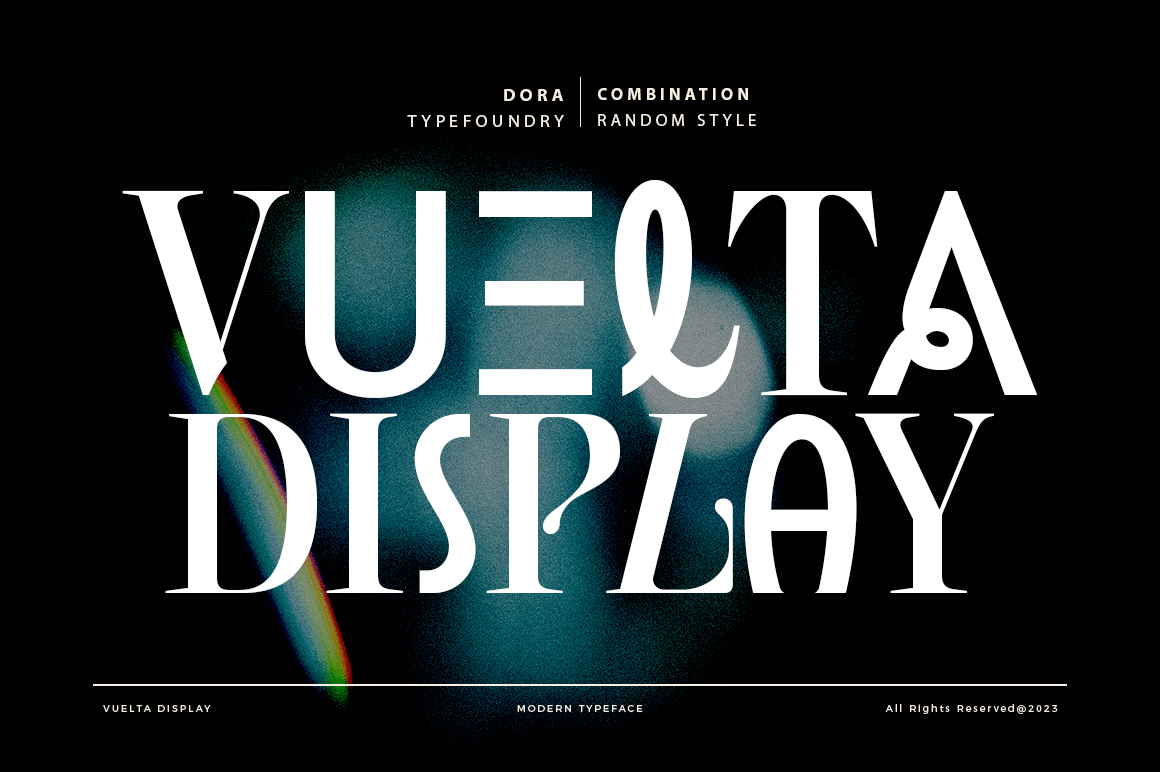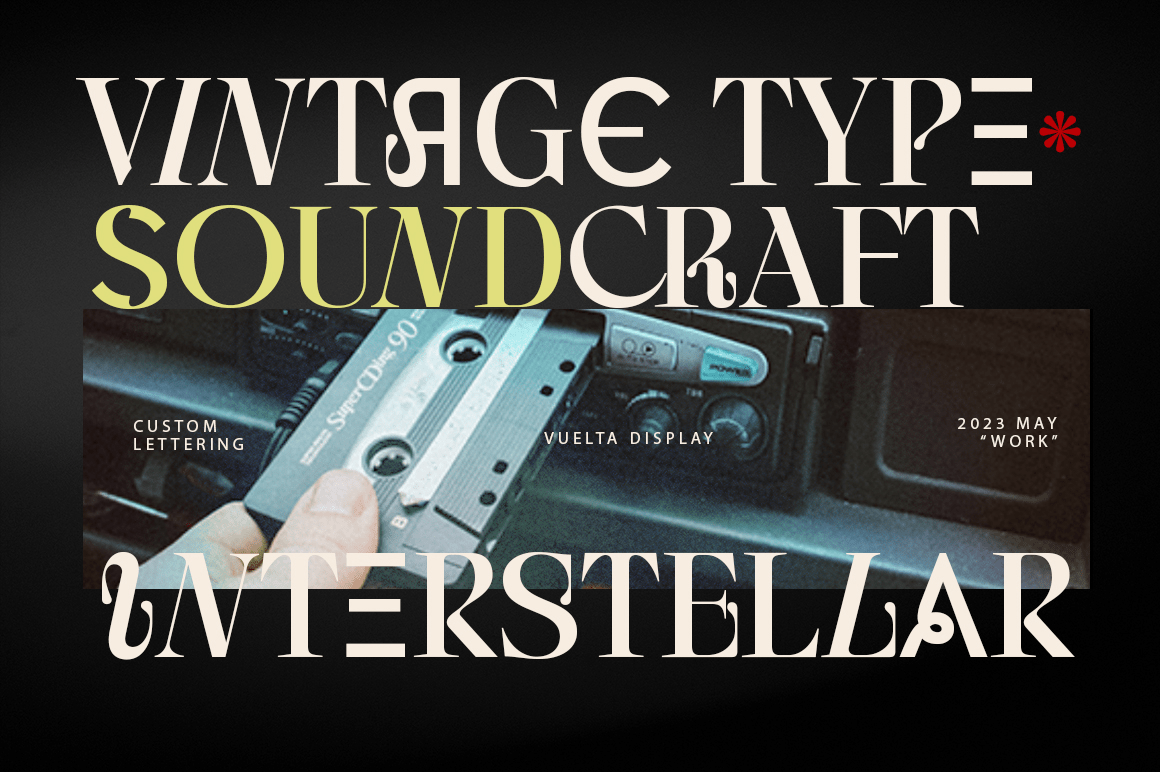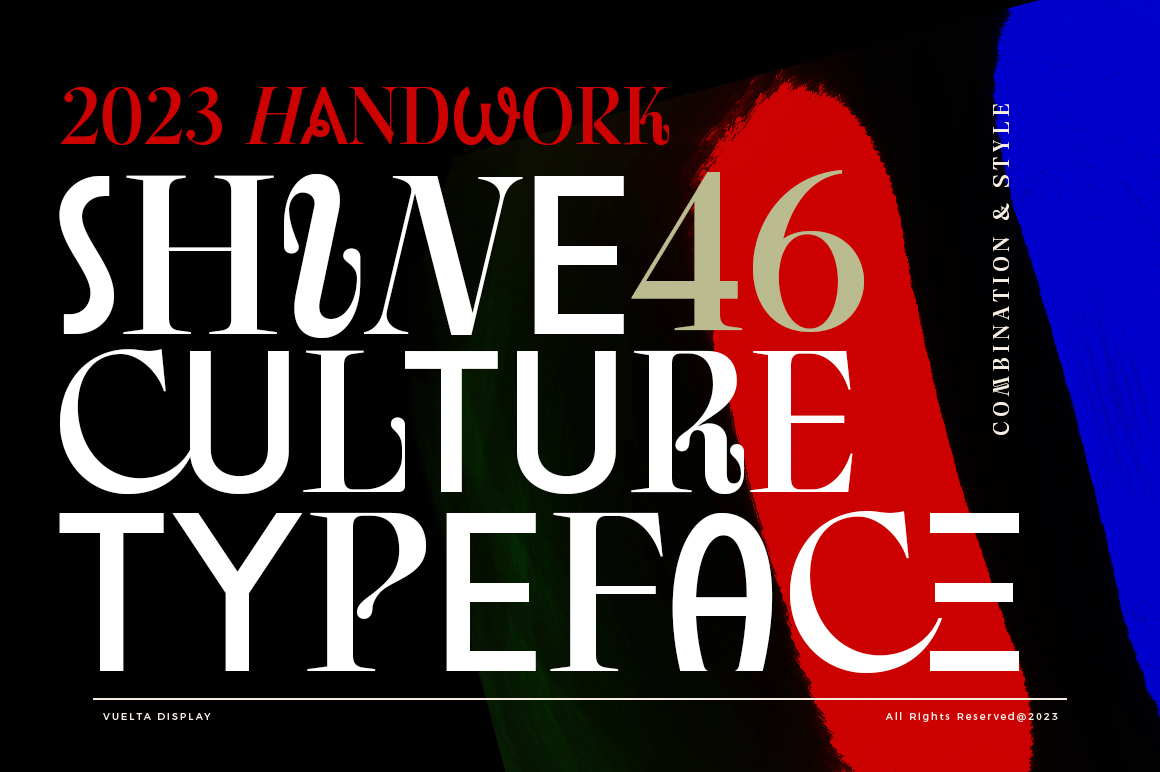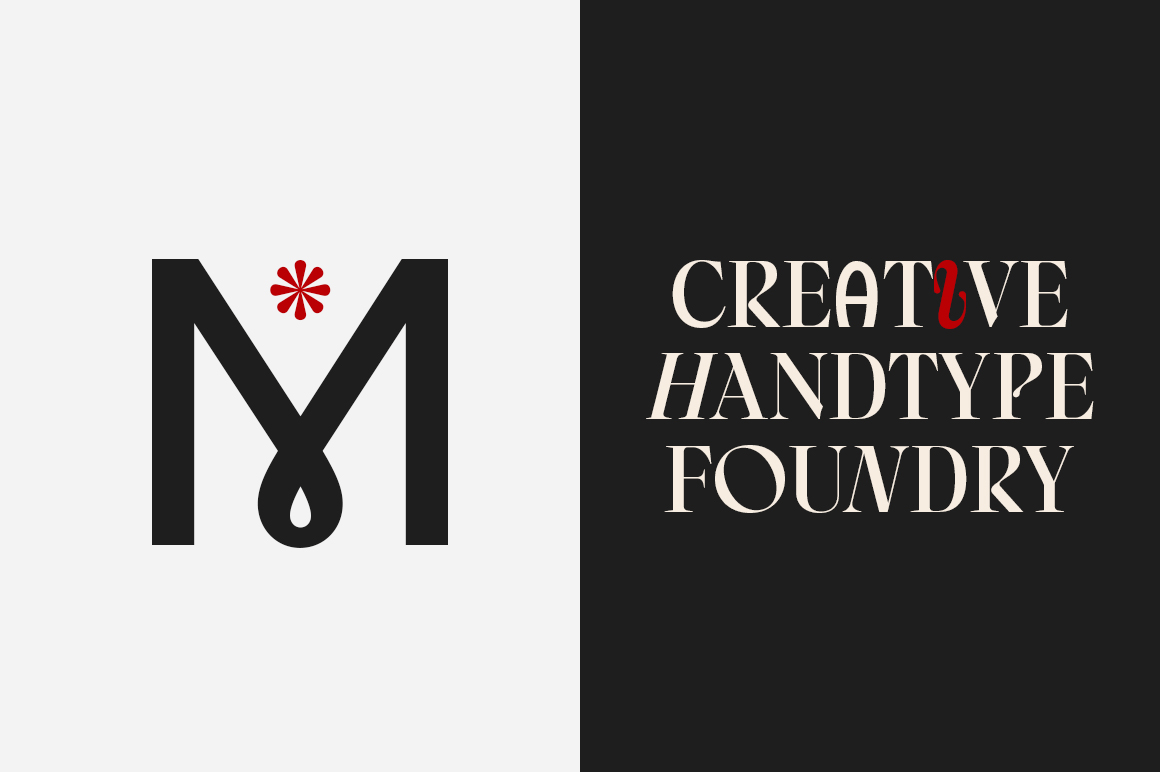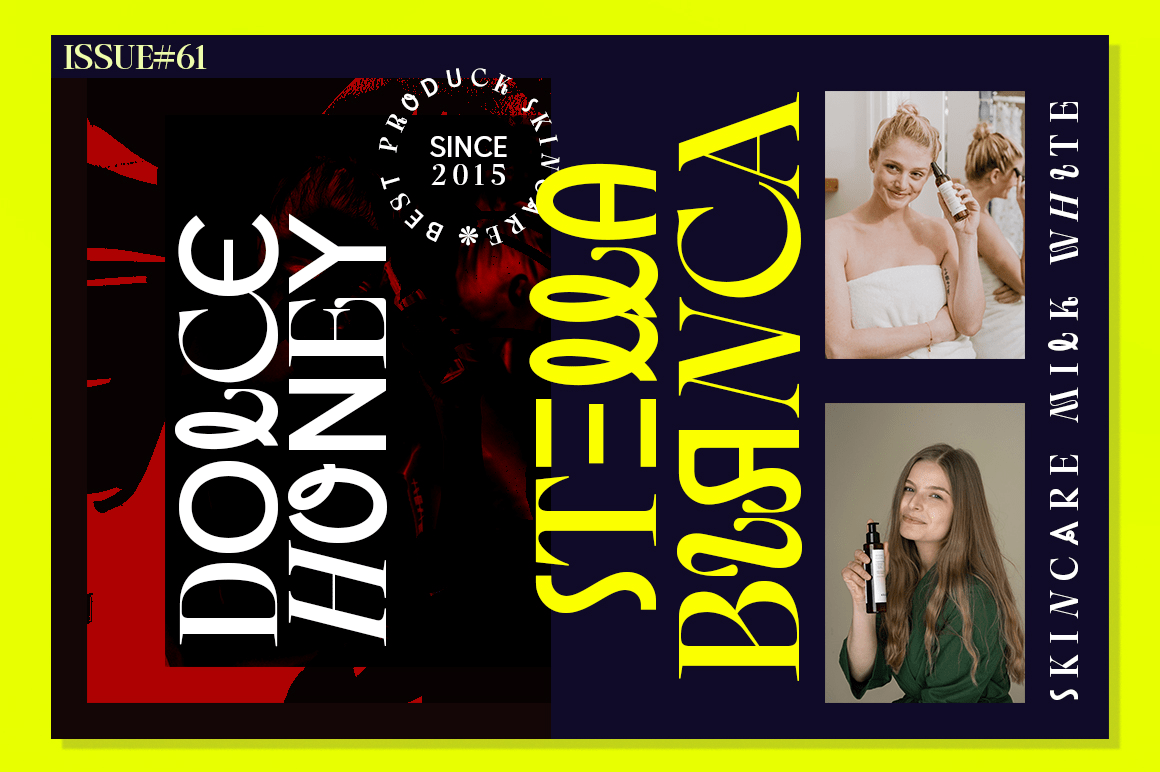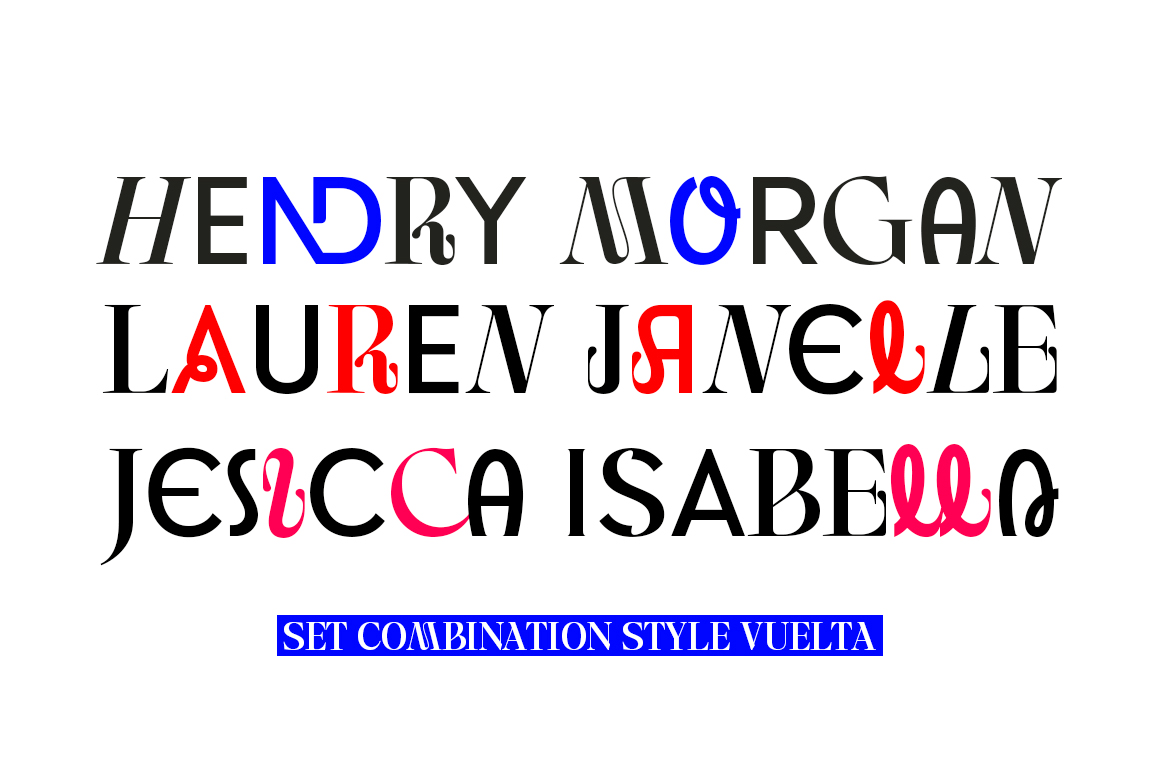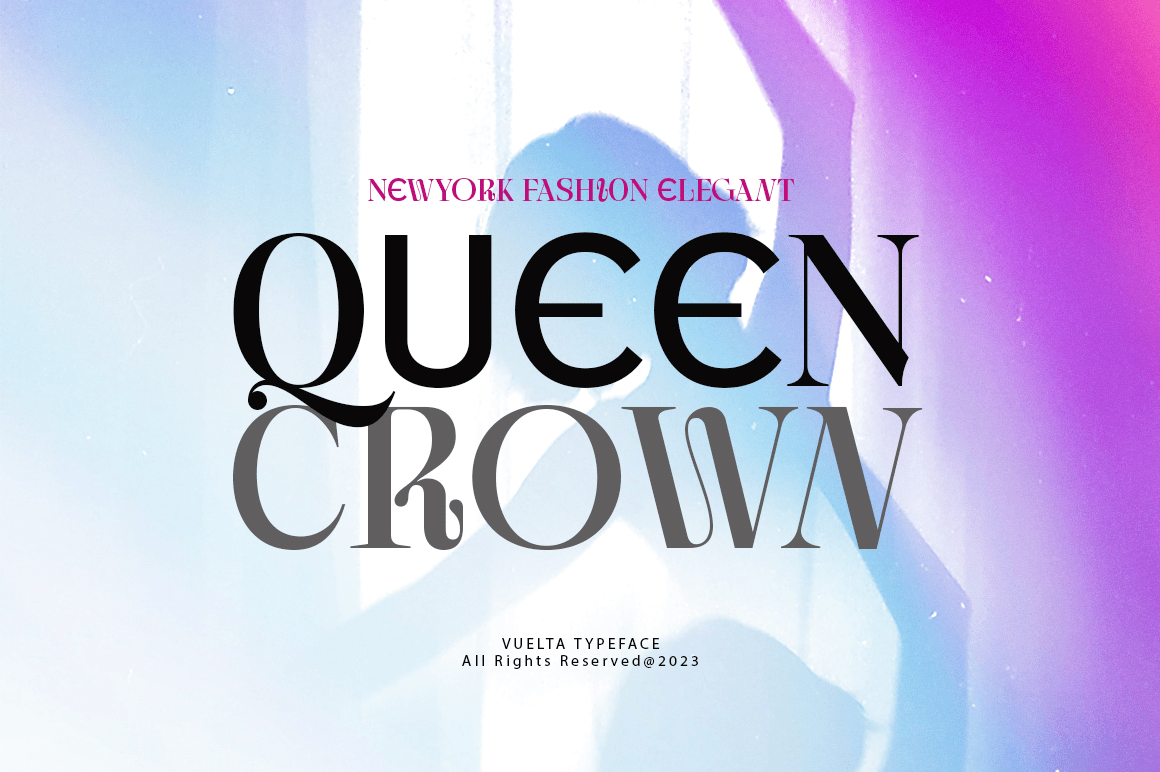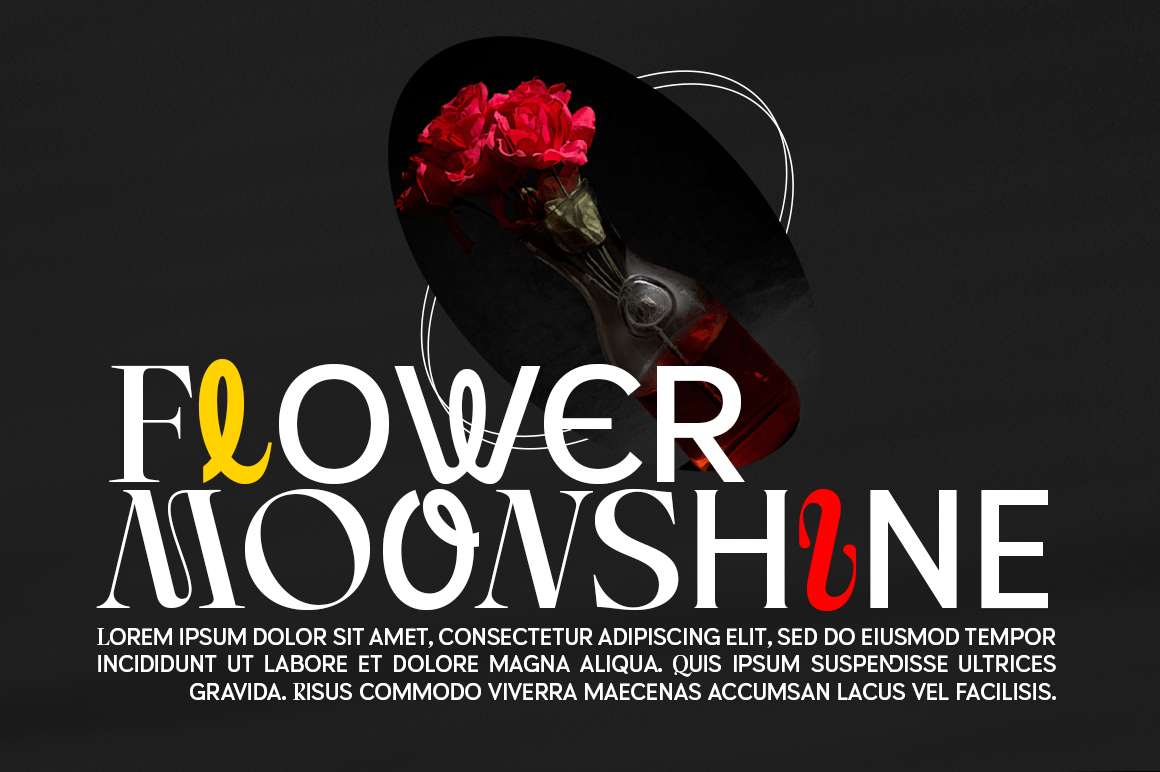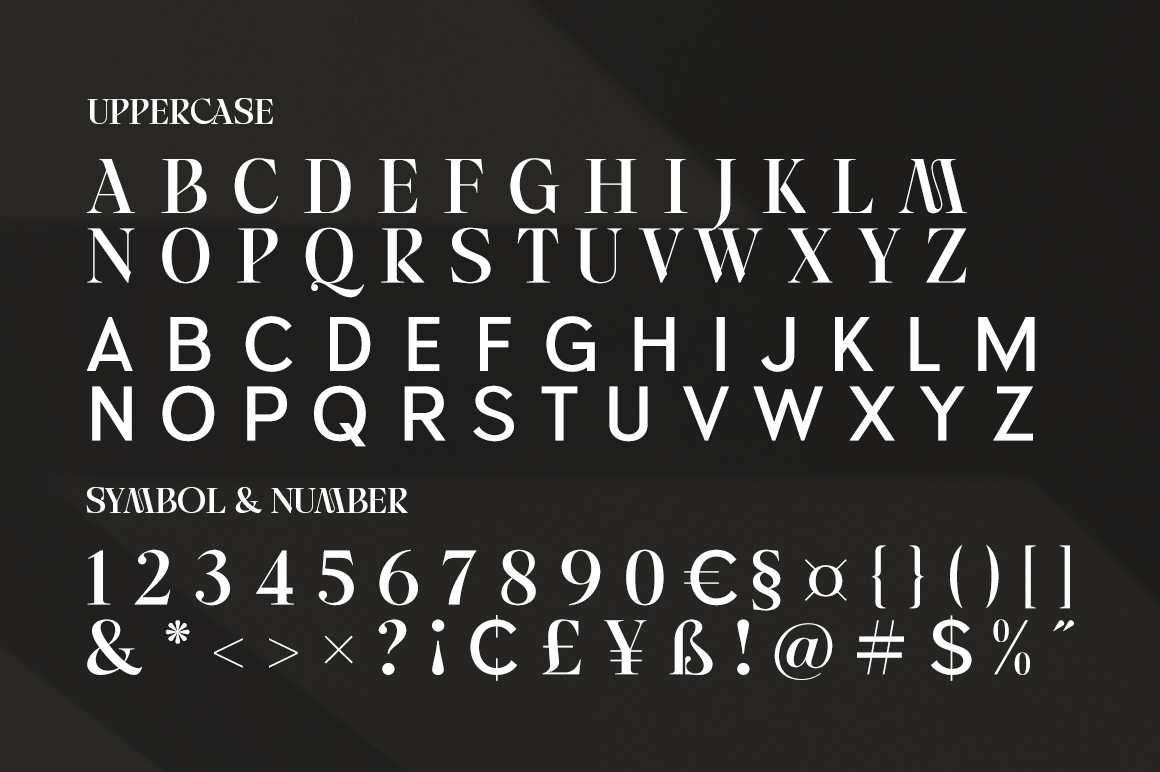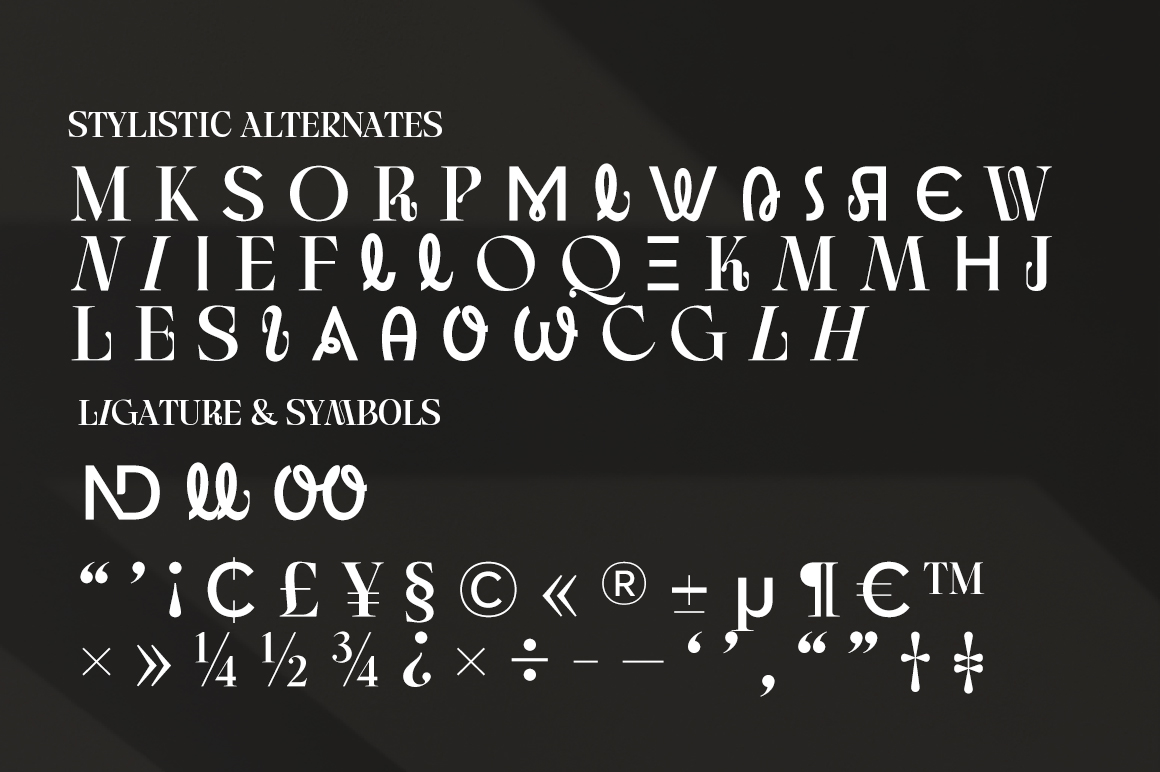
Vuelta Display
Buy NowVuelta Display is a modern random style font that combines serifs and sans in one font file. With serif as uppercase and sans as lowercase. You can use both uppercase and lowercase in the same word which will make your text more distinct too plus some alternatives so this font really stands out. This font perfectly made to be applied especially in logo, and the other various formal forms such as display, header, headline, poster, logos, or etc on a big typography.
**Features:**
- All Caps Font with different uppercase and lowercase
- Number & Symbol
- Alternates and Ligatures